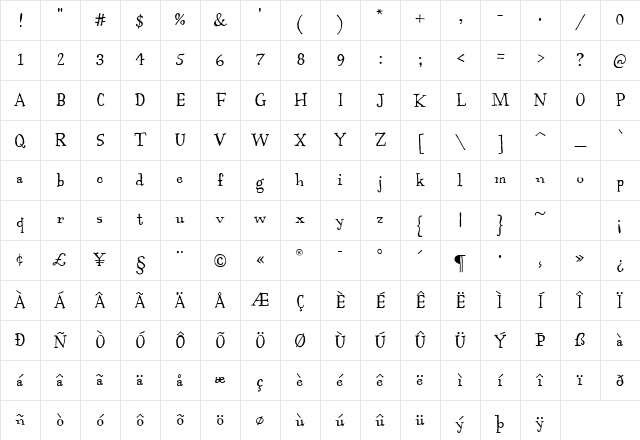
AuntMildred Regular Free Font
AuntMildred Regular
Design Context for AuntMildred
AuntMildred is a composed and adaptable typeface that performs quietly and consistently across a wide range of design contexts.